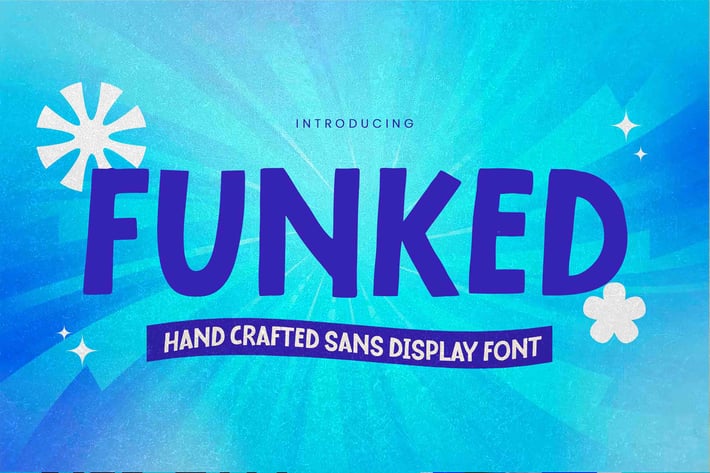
Funked - Hand Crafted Sans Display Font
ello Everyone, introduce our new product Font Funked Hand Crafted Sans Display Font. This is a Textured Natural Style and classy style with a clear style.
This font Funked is great for your next creative project such as logos, printed quotes, invitations, cards, product packaging, headers, Logotype, Letterhead, Poster, Design this font is great for your creative projects such as watermark on photography, and perfect for logos & branding, invitation,advertisements,product designs, stationery, wedding designs,label ,product packaging, special events or anything that need handwritting taste.
That is has charming, authentic and relaxed characteristic more natural look to your text.